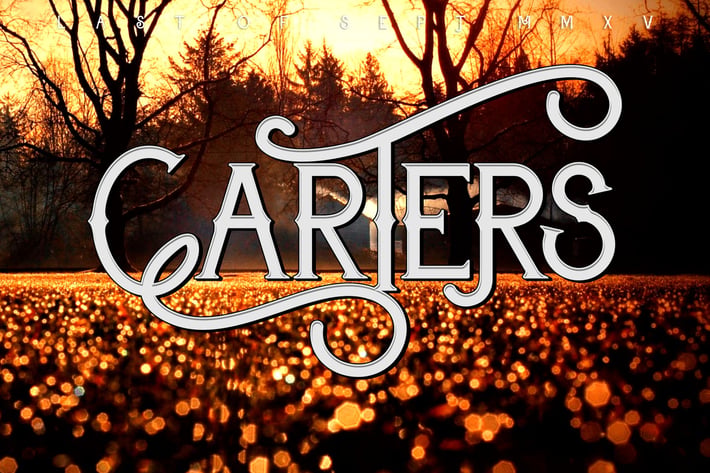
Carter Typeface
Carters its a modern classic typeface, really beautiful to typography, your brand,
Logos, catalog , all about of fashions and arts.
Carters available with normal and slant mode, more 300 unique glyphs
carters normal and slant support with Opentype
- Unique glyphs
- with cool Contextual Alternates
- Swash
- Stylistic Sets
- Multilingual characters
- UPPERCASE
- LowerCase
- Numeric,
- Symbol,
- Punctuation characters